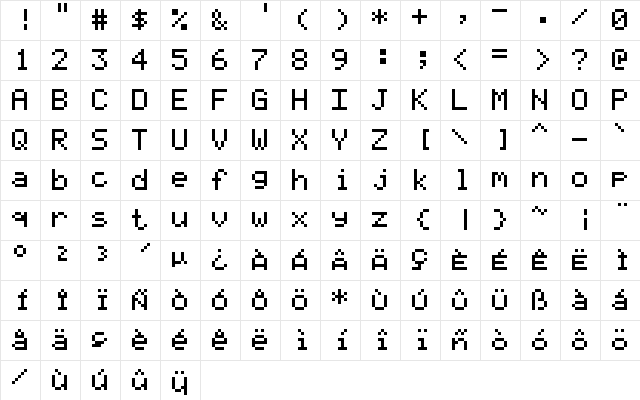
TI-83 Plus Regular
| Designer | Nitro |
Design Context for TI-83 Plus Typeface
TI-83 Plus offers clean, dependable letterforms without strong stylistic allegiance, making it a practical choice for designers who need flexibility.